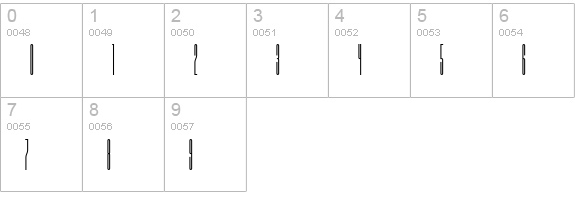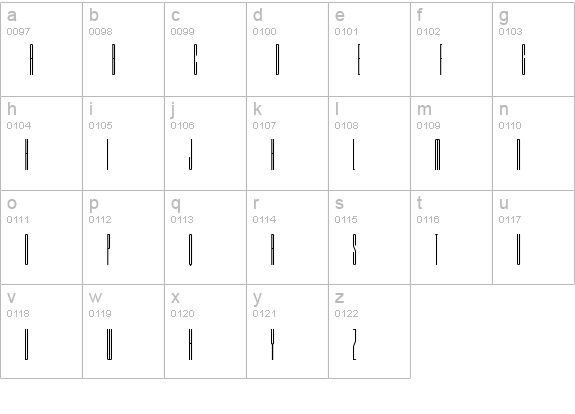
Barcode-Four font is a sleek and modern typeface that is perfect for adding a tech-savvy touch to your designs. With its clean lines and bold appearance, this font is sure to catch the eye and make a statement. The Barcode-Four font is not only stylish but also versatile, making it suitable for a wide range of projects, from branding to packaging to digital designs. The best part about Barcode-Four font is that it is completely free to download at FontsMarket.com. This means you can easily access this cutting-edge font to elevate your designs without any cost. Whether you're a graphic designer, marketer, or hobbyist, Barcode-Four font is a valuable addition to your font collection. Download it today and start creating stunning visuals that stand out from the crowd.